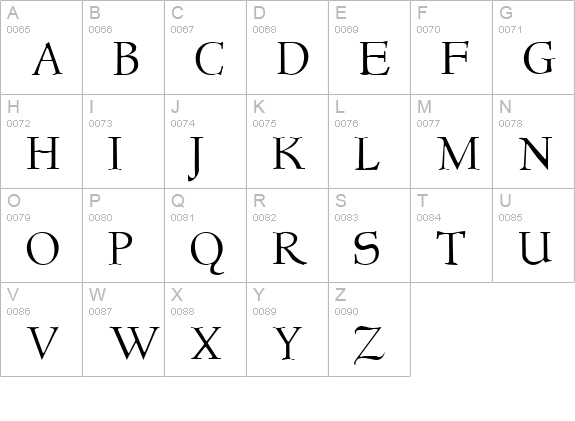
Introducing NewStyleLight font - a sleek and modern typeface that exudes elegance and sophistication. With its clean lines and stylish design, this font is perfect for a wide range of projects, from branding to editorial design. The NewStyleLight font strikes the perfect balance between professionalism and creativity, making it a versatile choice for any design endeavor. And the best part? NewStyleLight is available for free download at FontsMarket.com. This means you can add this beautiful font to your collection without any cost, allowing you to enhance your projects with a touch of class and style. Don't miss out on the opportunity to elevate your designs with the NewStyleLight font - download it today and see the difference it can make!